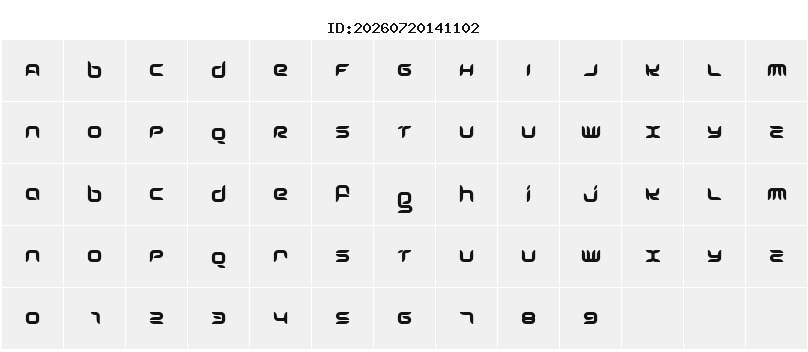
Freshbot Preview
• Font Name: Freshbot
• Full Font Name: Freshbot
About Freshbot.ttf
Freshbot.ttf is a modern, elegant sans-serif font designed for ultimate readability and visual harmony. Perfect for branding, headlines, web design, and print materials.